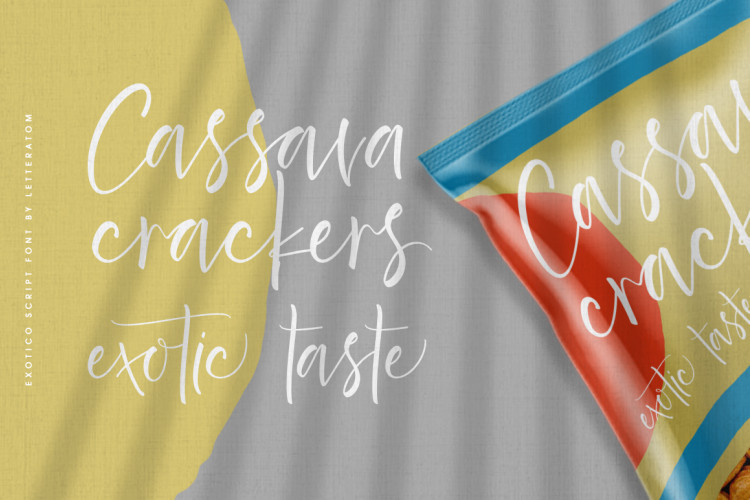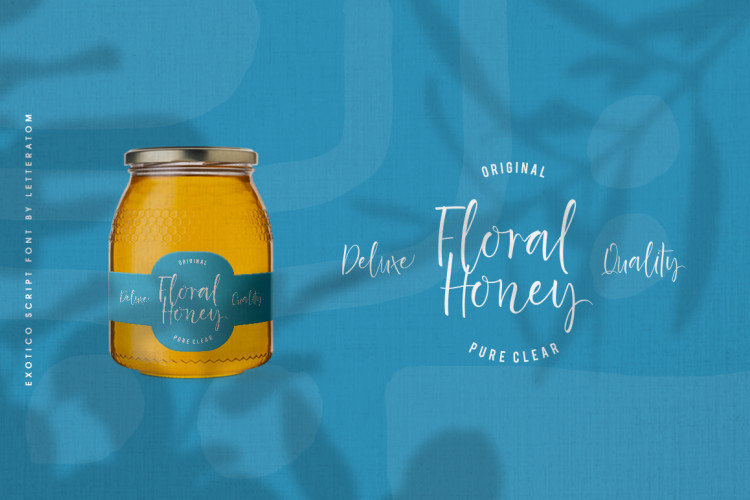
Exotico Script Font
This is a modern handwritten calligraphy script. This font will suitable for your any project. Branding, quotes, headlines, romantic letters and many more. Exotico Font is design and shared by Letteratom. It’s special in that one word can be written in a million different ways. With a picturesque and exotic touch, it will give a new feel for all your design needs. You are welcome to use it for various purposes: logo, wedding invitation, title, signature, t-shirt, letterhead, nameplate, label, poster etc.